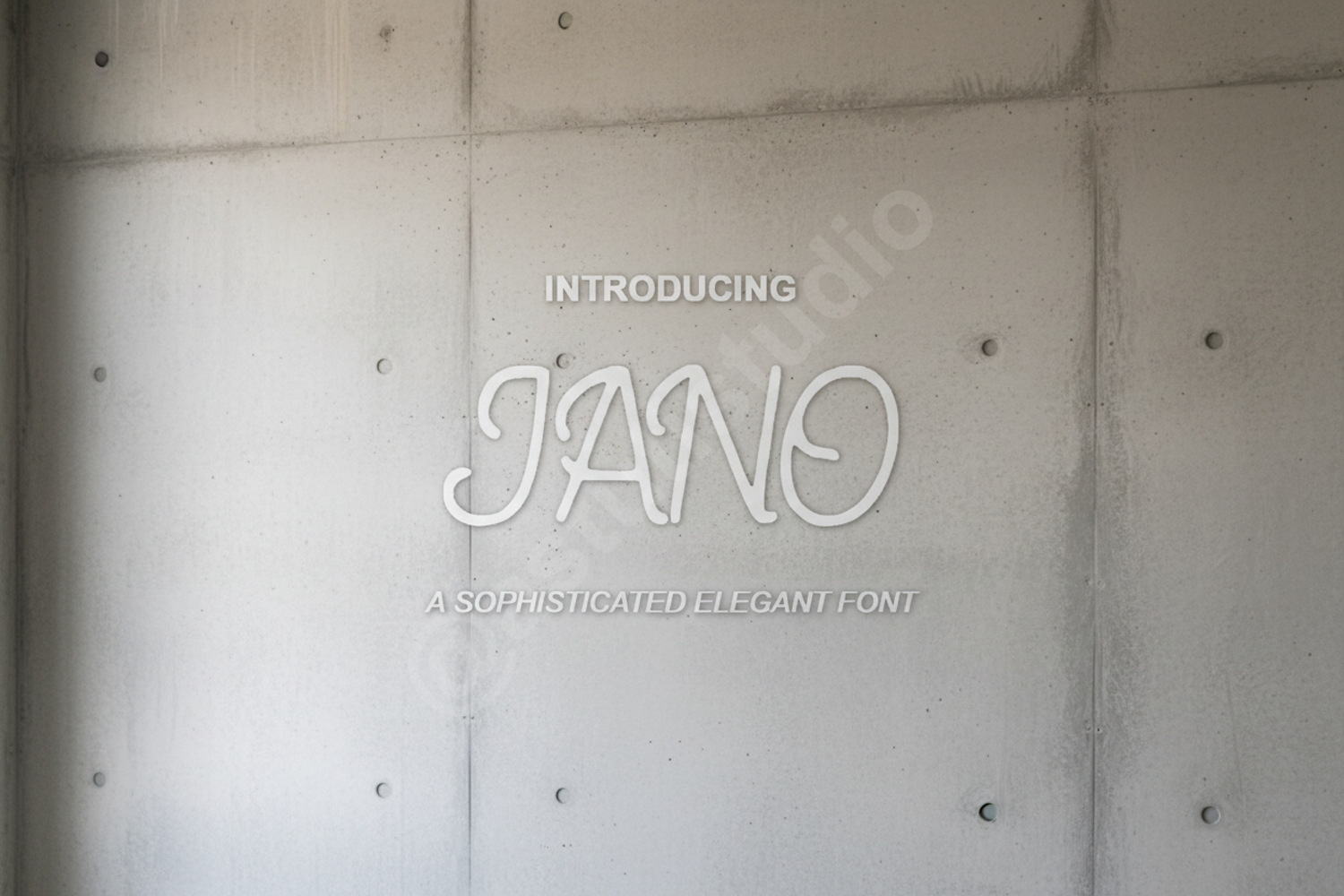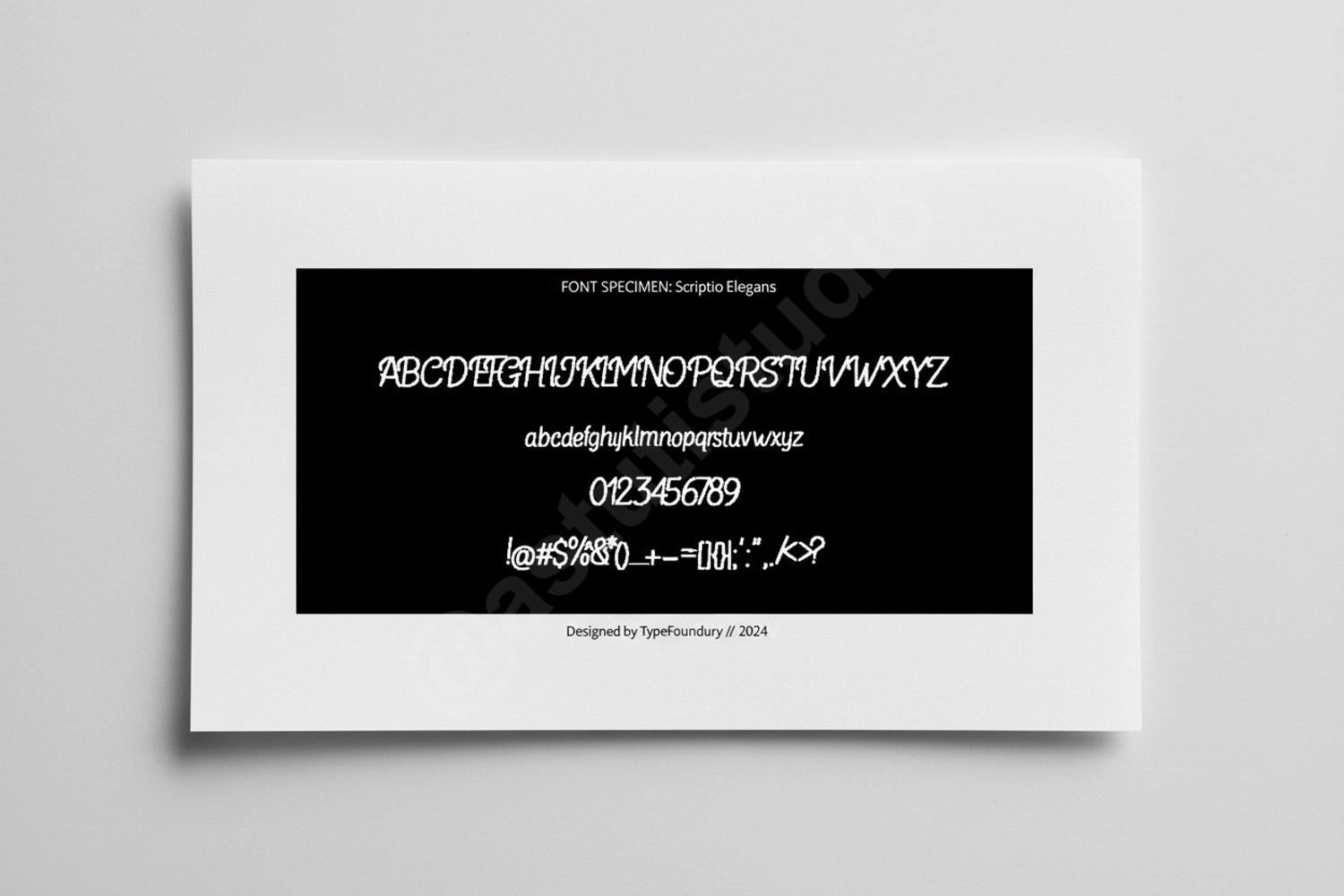
Jano - Modern & Versatile Geometric Sans Serif
Jano
Experience the perfect blend of precision and elegance with Jano, a premium geometric sans serif font designed for high-end creative projects. With its clean lines and balanced proportions, Jano offers a timeless aesthetic that adapts effortlessly to any design context, ensuring your work stands out with professional clarity.
- Full set of uppercase and lowercase letters
- Multilingual support for global accessibility
- Corporate Branding and Identity Systems
- Minimalist Logo Design and Wordmarks
- Editorial Layouts and Magazine Typography
- Modern Website Headers and UI Design
- Social Media Graphics and Digital Marketing
- Premium Packaging and Luxury Print Media